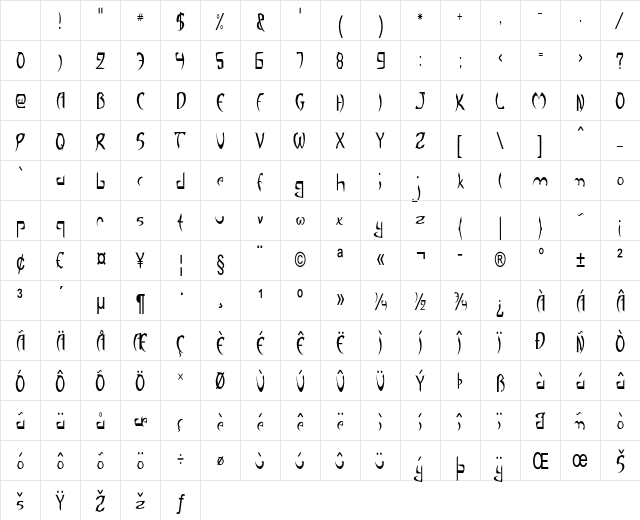
Complete Belordia Condensed Regular glyph index. Displaying only characters natively supported by Belordia Condensed Regular font.
Belordia is a composed and adaptable typeface that performs quietly and consistently across a wide range of design contexts. Its narrow stance lets it pack a punch even in space-constrained designs.